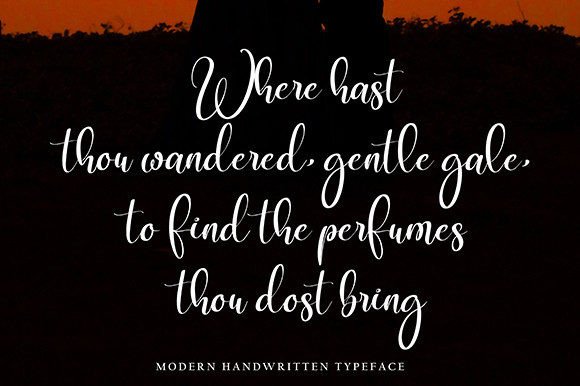
Saton Perttiz Font
About Saton Perttiz Font
Saton Perttiz is a flowing handwritten font, described by an elegant touch, perfect for your favorite projects. Fall in love with its incredibly distinct and timeless style and use it to create spectacular designs!